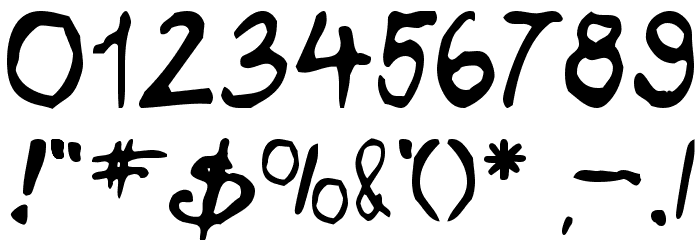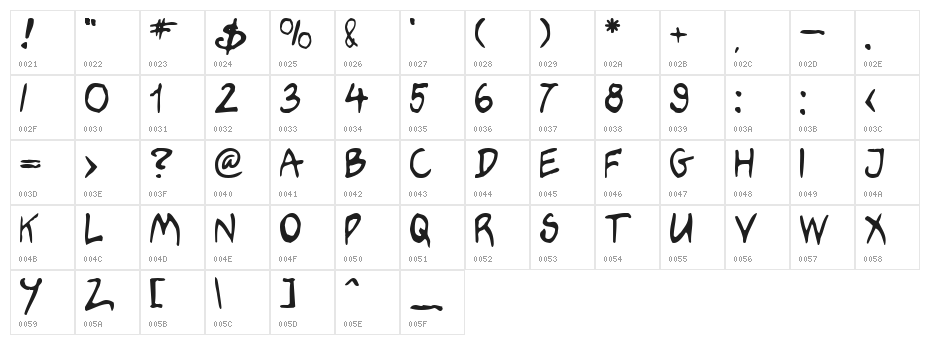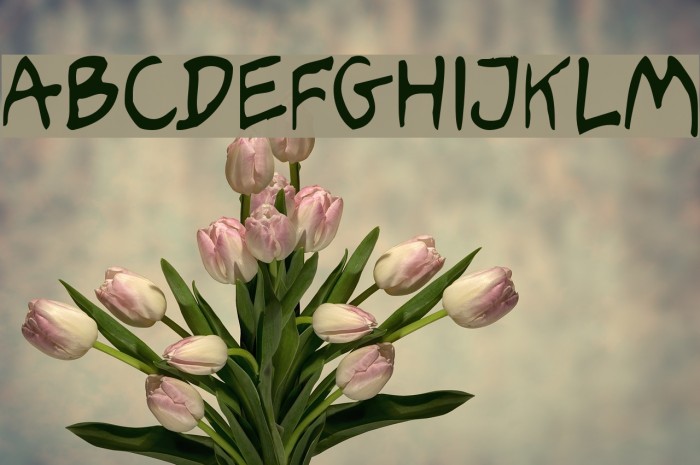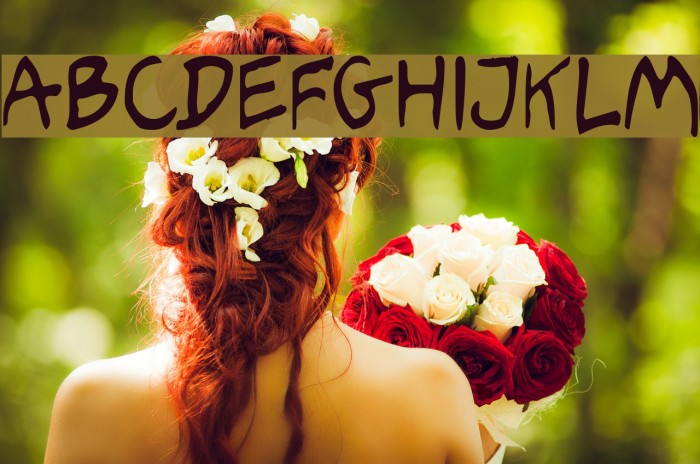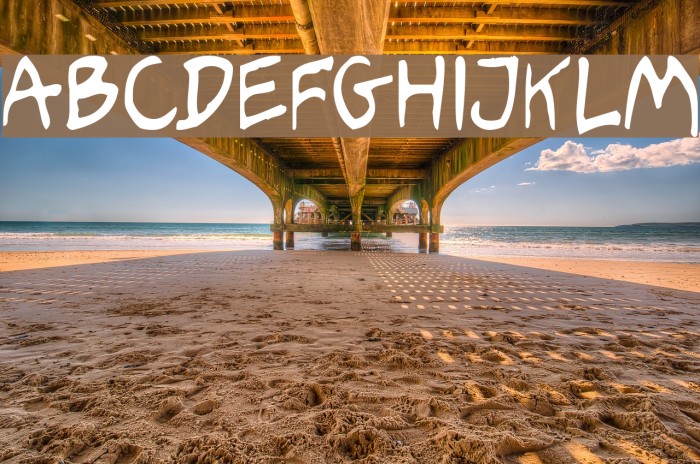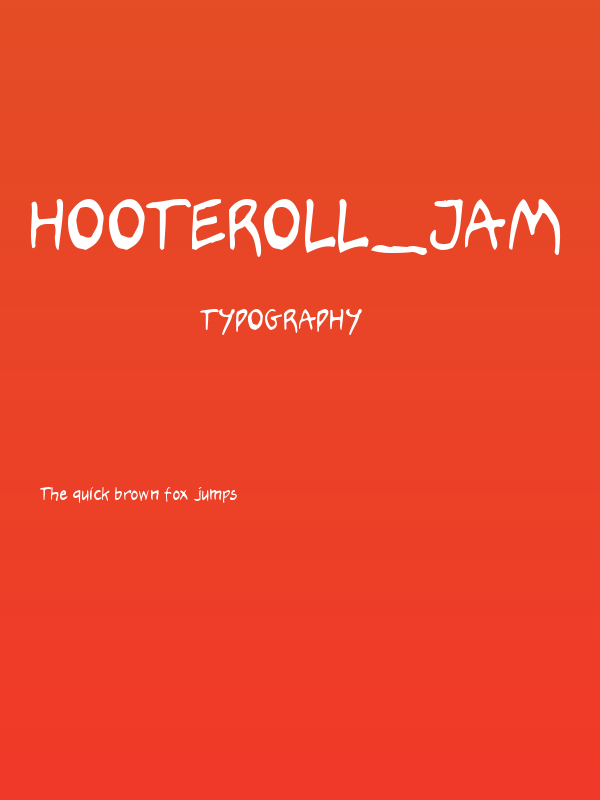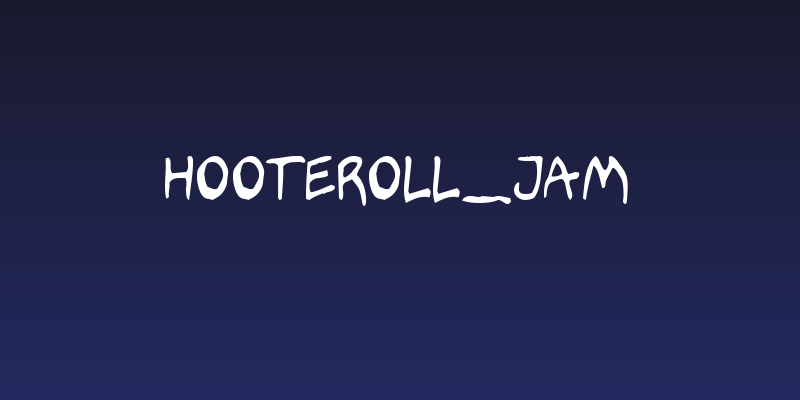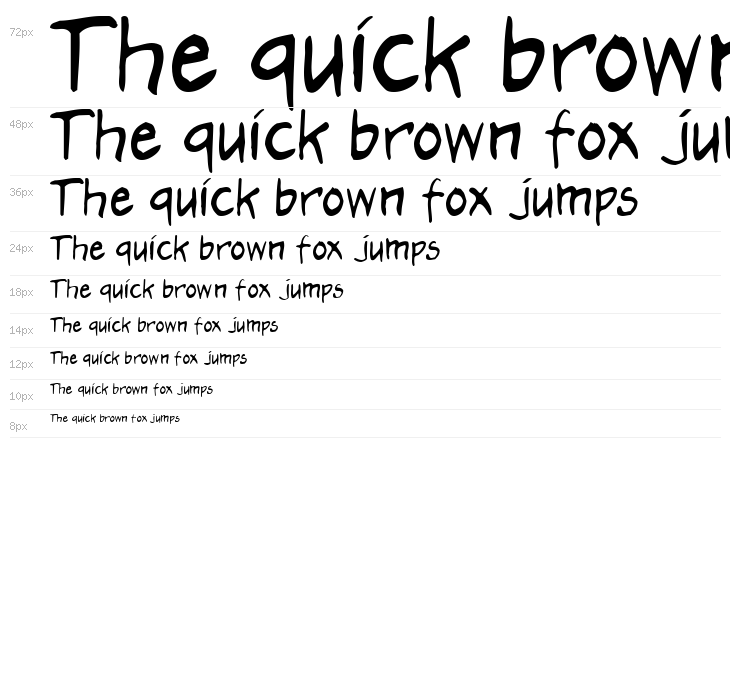
Hooteroll_Jam Font
Hooteroll_Jam Description
This font features a playful, handwritten style with a casual and organic feel. The letters are uneven and slightly irregular, giving it a whimsical and artistic appearance. The strokes vary in thickness, adding to its dynamic and lively character. The uppercase and lowercase letters maintain a consistent style, while the numbers and special characters complement the overall design. This font exudes a sense of creativity and spontaneity, making it ideal for projects that require a personal touch.